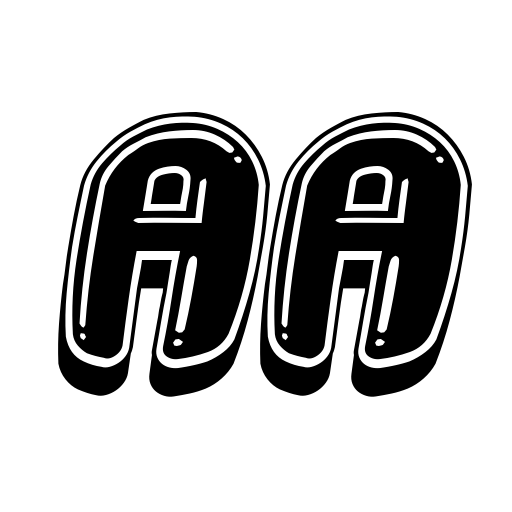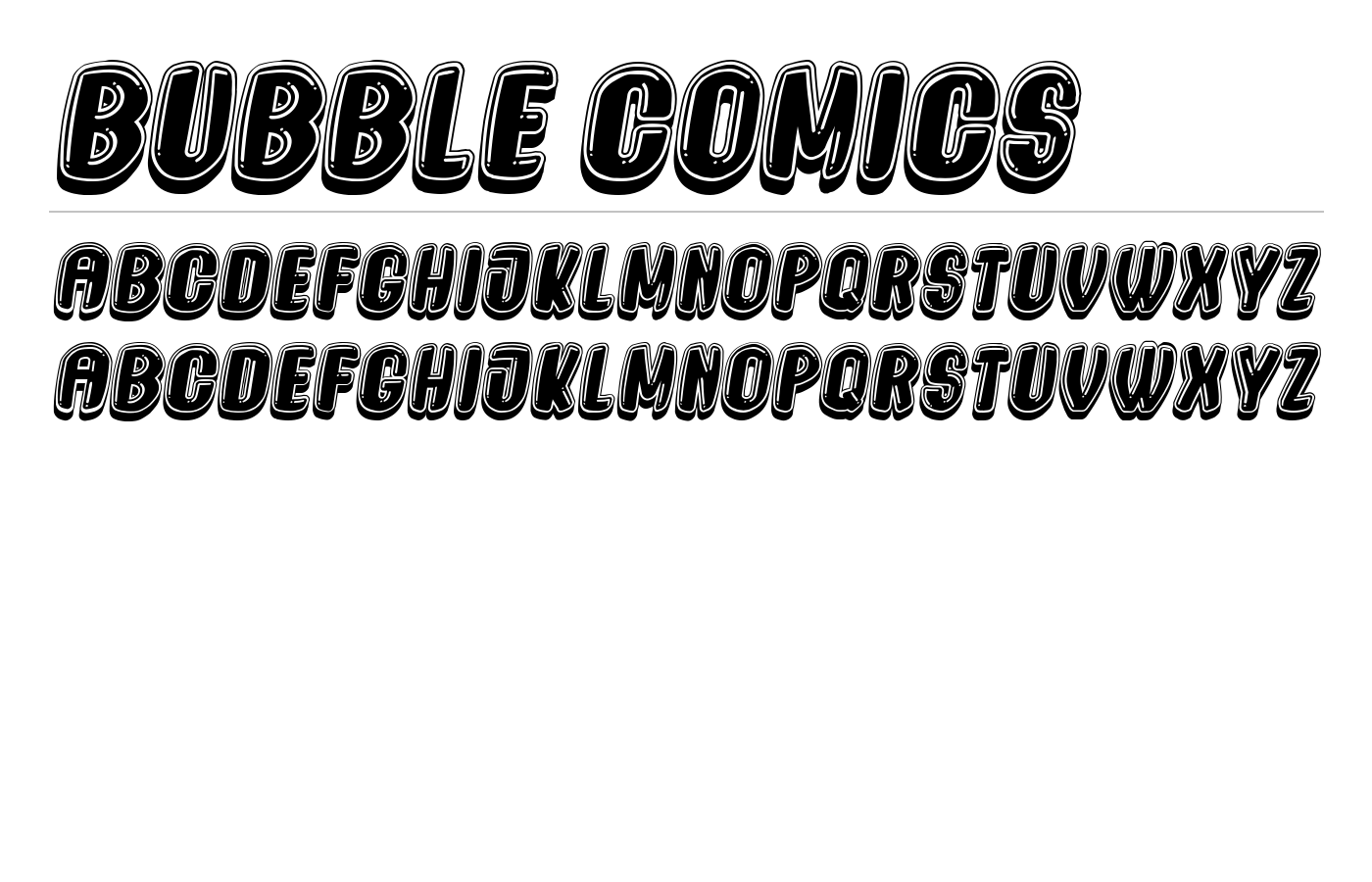
Bubble Comics Font is a playful and bold sans serif typeface with a comic-inspired style, featuring thick, rounded letterforms outlined with a dynamic shadow effect that adds depth and energy. Its lively and chunky characters make it perfect for attention-grabbing headlines, logos, posters, and fun branding projects that want to convey a youthful, energetic vibe. This font works best in creative and informal contexts where a vibrant and approachable personality is desired.
Bubble Comics Font
About Bubble Comics Font
| Font family | Bubble Comics Font |